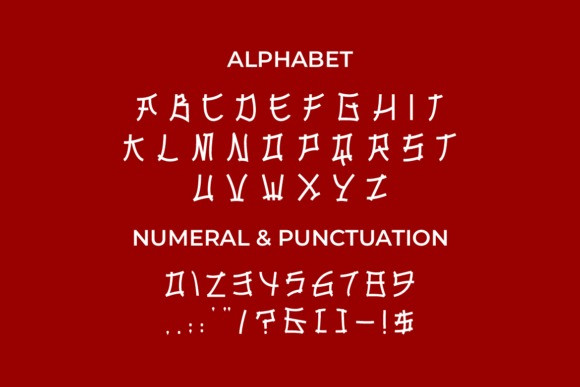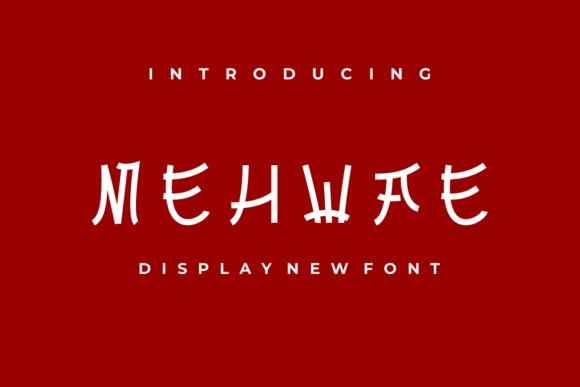
Mehwae Font
Mehwae Font is a cool, Asian-inspired display typeface. Its natural and unique style makes it incredibly fitting to a large pool of designs. The only limit is your imagination!